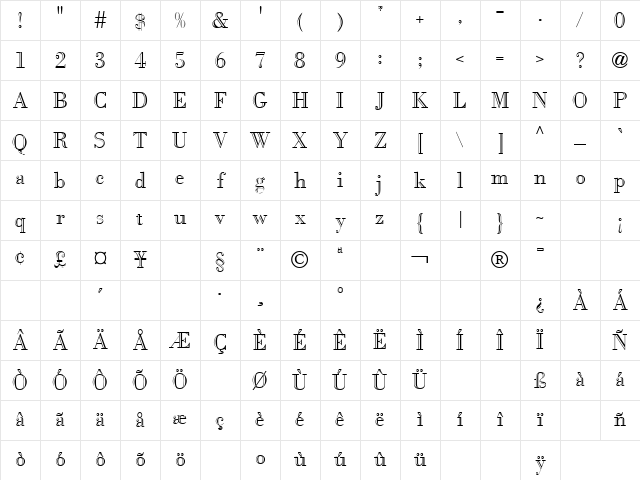
Klassique Regular Free Font
Klassique Regular
Design Context for Klassique
Klassique is a composed and adaptable typeface that performs quietly and consistently across a wide range of design contexts.